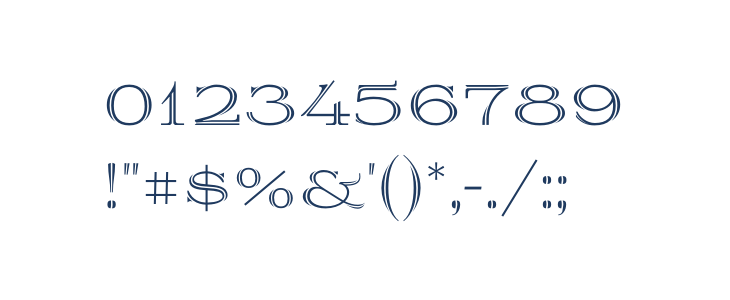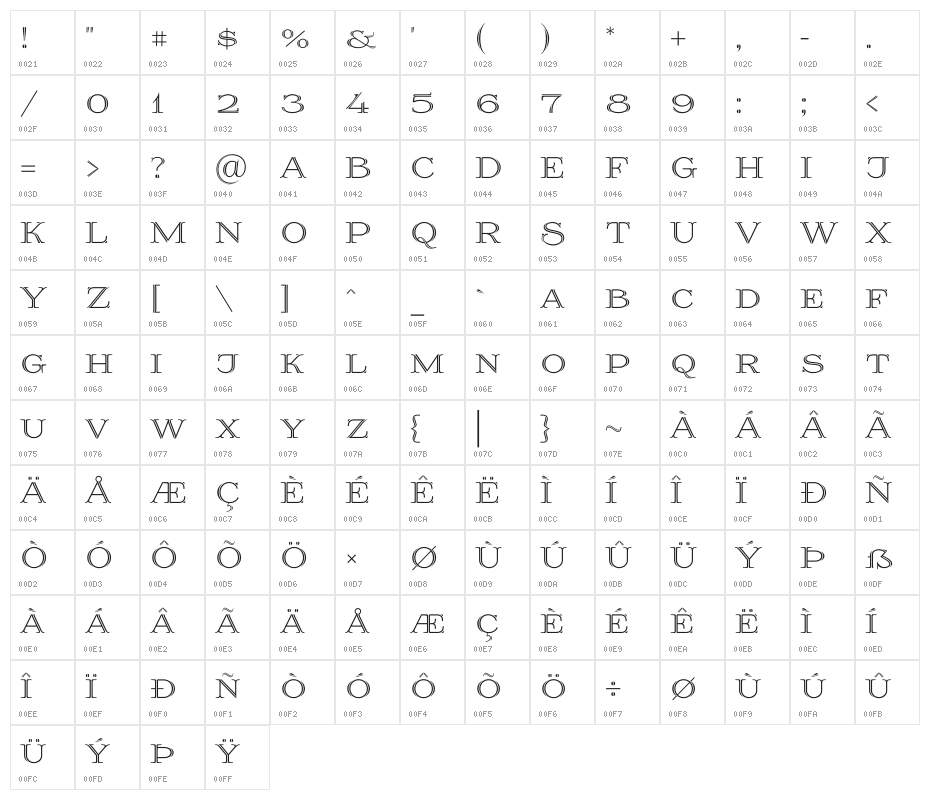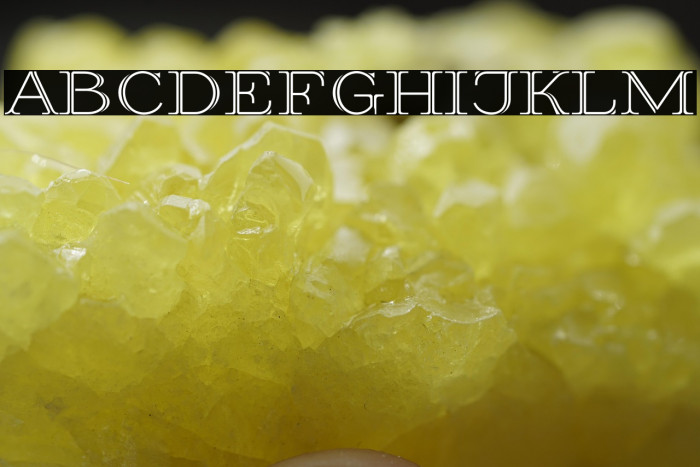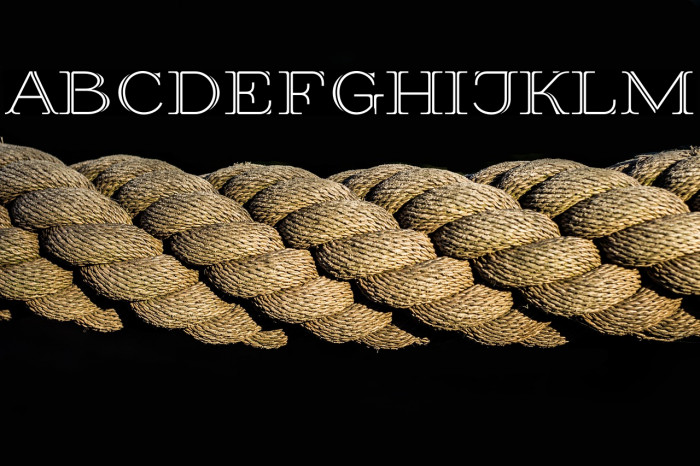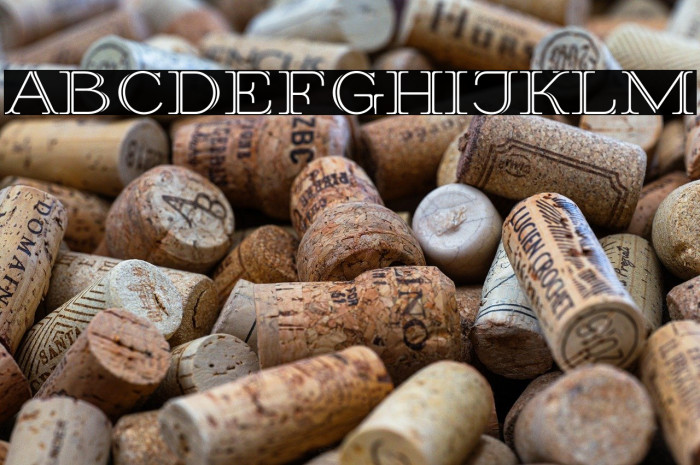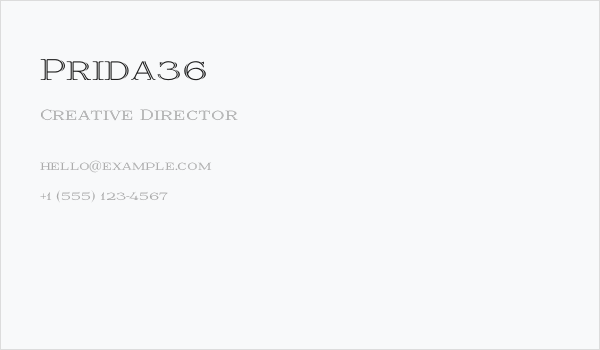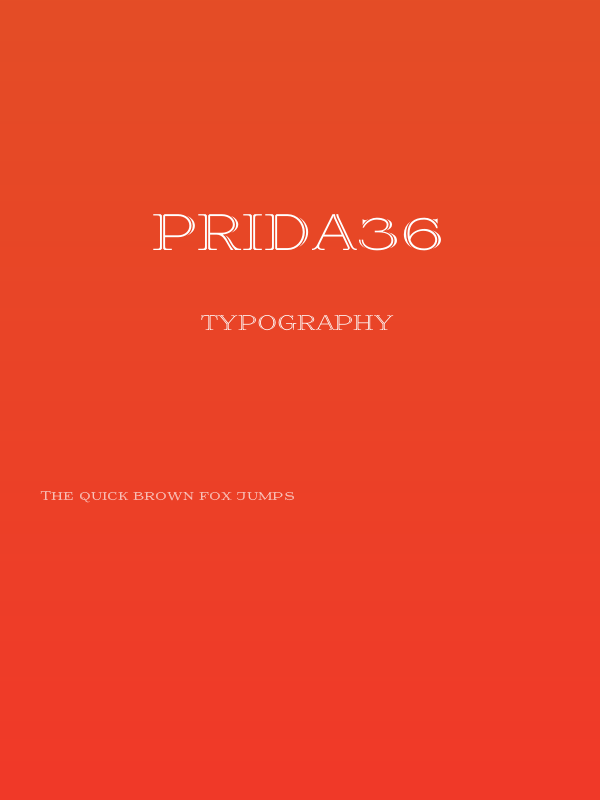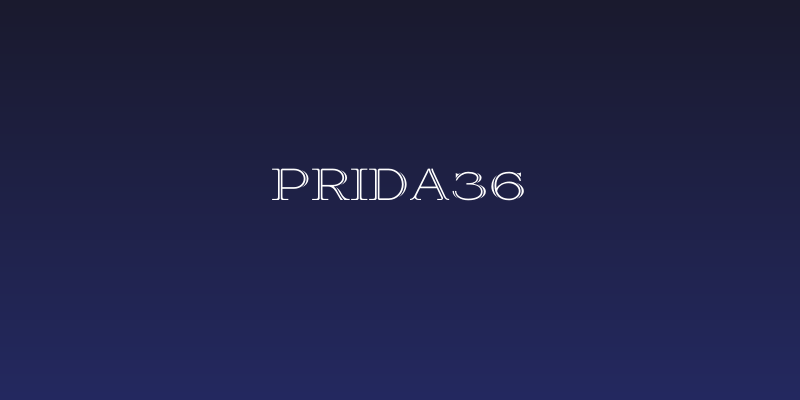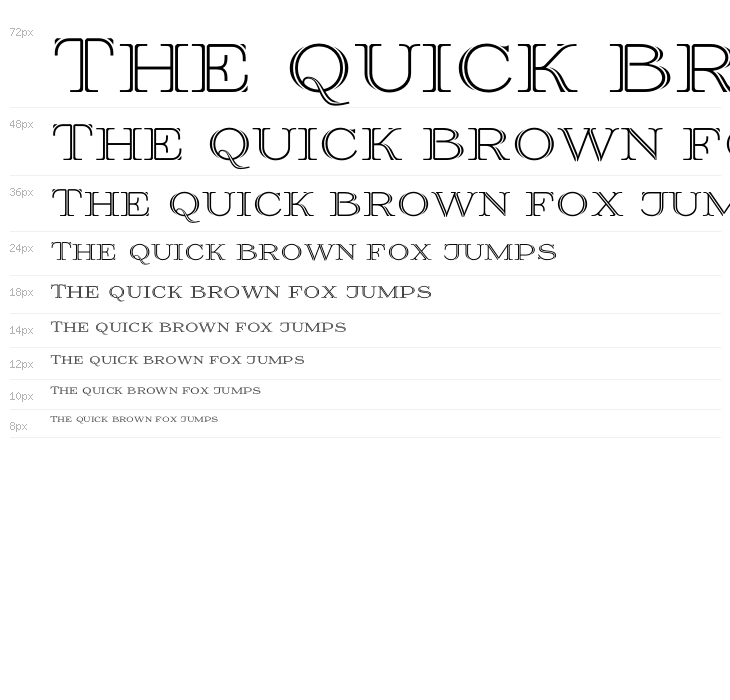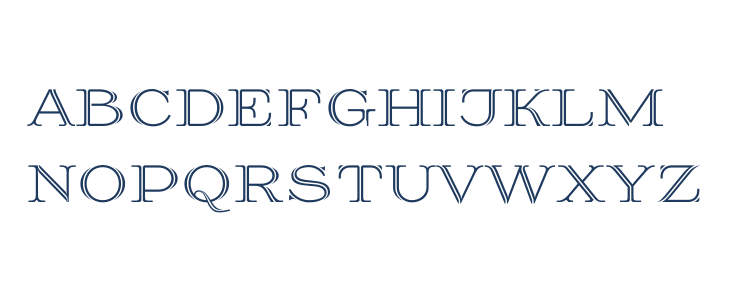
Prida36 Font
Prida36 Description
This font features a classic serif style with a modern twist, characterized by thin lines and elegant curves. The uppercase letters are bold and prominent, with distinct serifs that add a touch of sophistication. The lowercase letters maintain a consistent style, offering a harmonious balance between the characters. Numbers are clear and easy to read, with a uniform design that complements the overall aesthetic. Special characters are thoughtfully designed, maintaining the font's cohesive look. This font is ideal for projects that require a blend of tradition and modernity, making it suitable for various design applications.